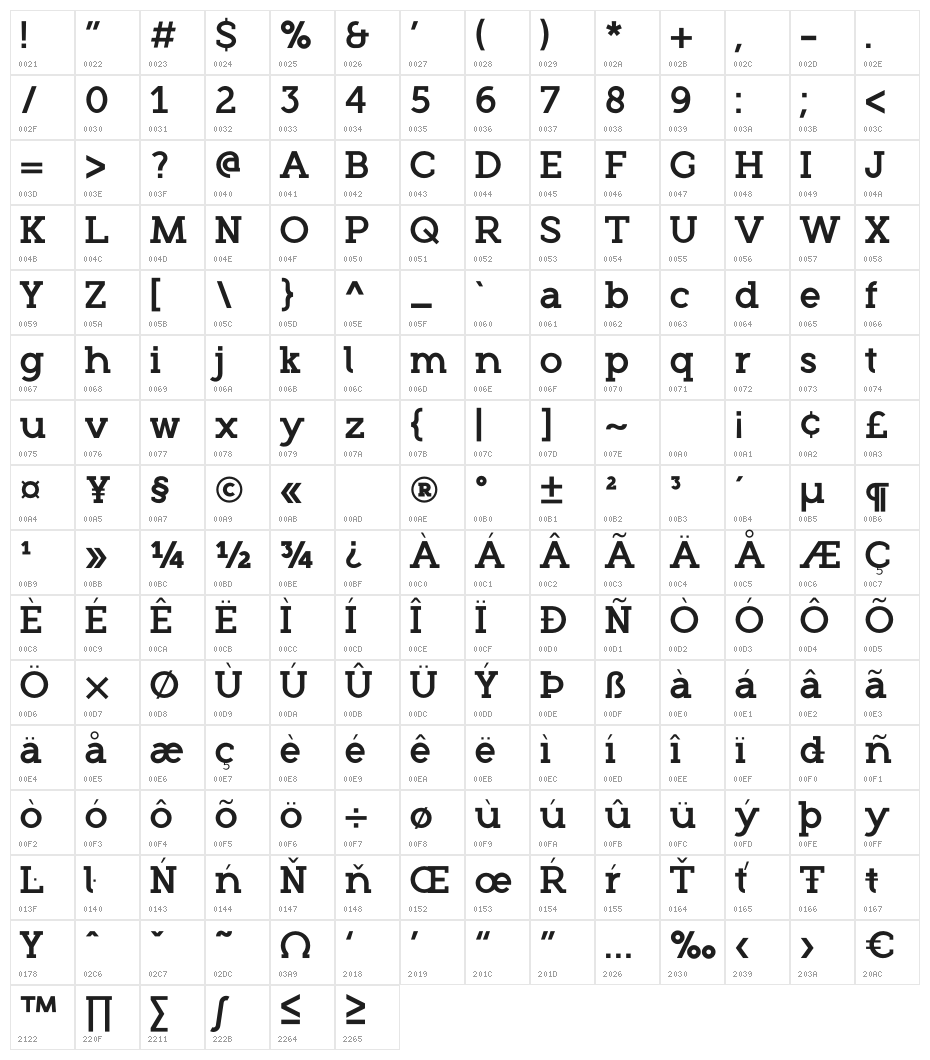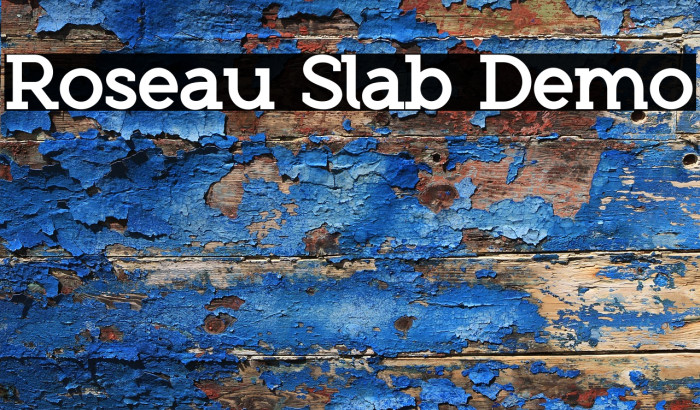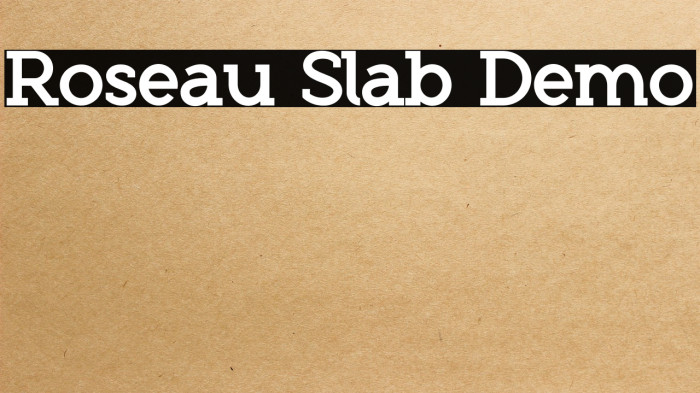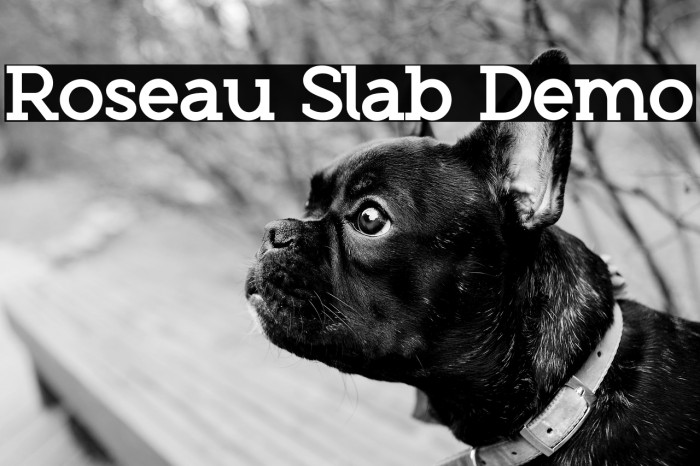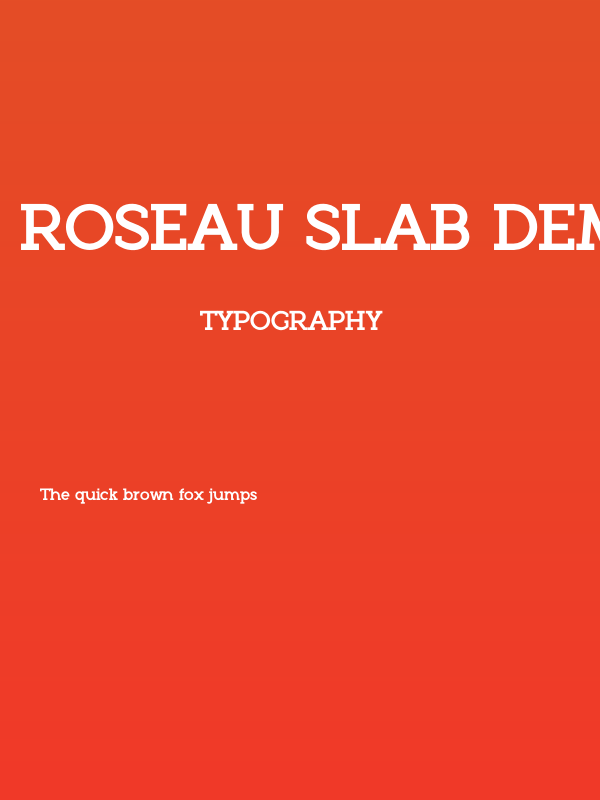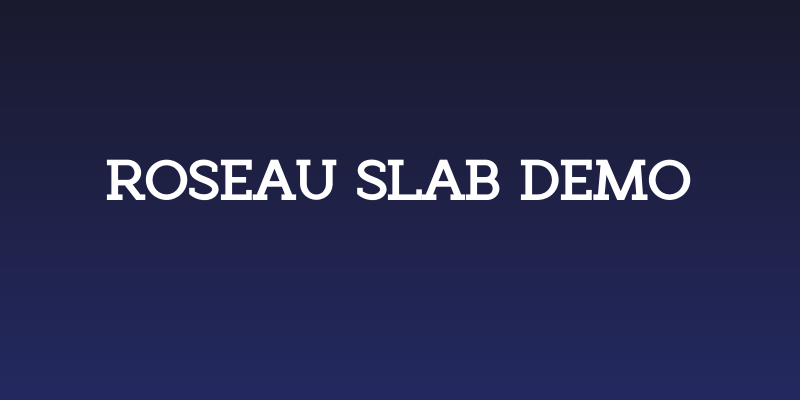
Roseau Slab Demo Font
Roseau Slab Demo Description
This font features a robust and structured design with slab serif characteristics. The letters are bold and have a strong presence, making them ideal for attention-grabbing headlines. The uppercase characters are uniform and balanced, while the lowercase letters maintain a consistent style with slightly rounded edges. The numerals are clear and easy to read, complementing the overall boldness of the font. Special characters are well-defined, adding versatility to the font's use. The font's design is modern yet retains a classic touch, making it suitable for a variety of applications.
| Proposed Projects | Ideal for headlines, posters, branding materials, and editorial design. |